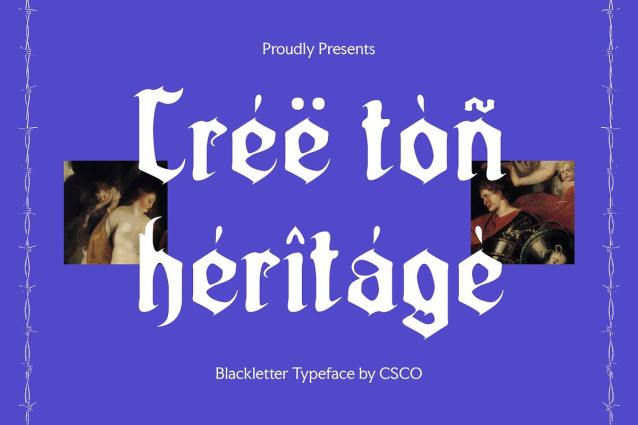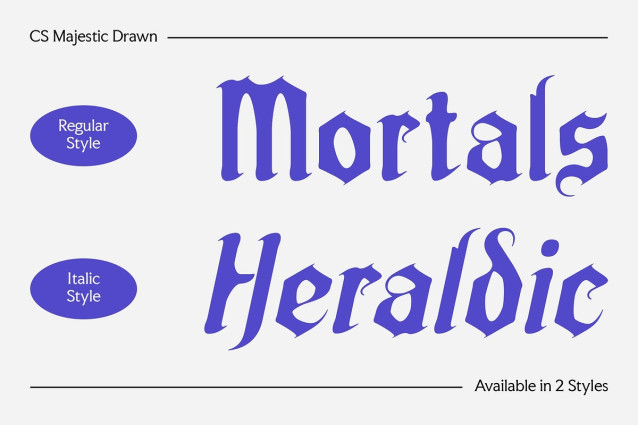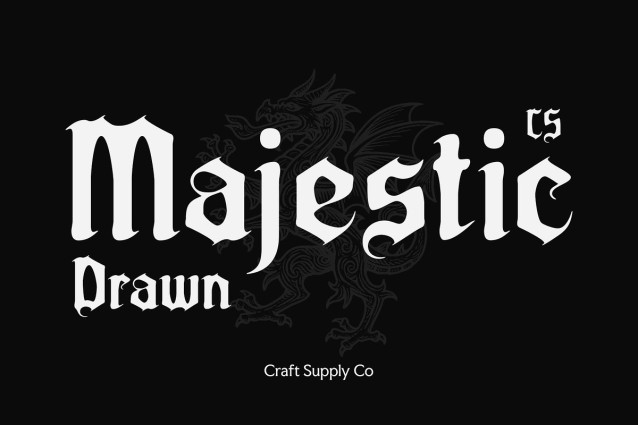
CS Majestic Drawn Font
CS Majestic Drawn brings a fresh take on the blackletter genre, blending classic gothic influences with a modern, drawn aesthetic. Its bold, dramatic letterforms are accentuated by an organic, handcrafted texture, giving the font a raw yet refined presence that feels both timeless and experimental.
Mysterious, Bold, and Full of Character This display font’s sharp angles and flowing strokes create a rhythm that feels dark, expressive, and powerful—perfect for evoking a mysterious or theatrical atmosphere. The drawn look introduces a sense of imperfection and artistry, setting it apart from sterile digital fonts and lending a human touch to your designs.
Designed for Impactful, Experimental Themes This expressive and bold font is ideal for gothic posters, dark branding, underground music visuals, book covers, and conceptual fashion — thriving in settings that demand drama, intensity, and visual uniqueness. Its form strikes a balance between legibility and ornamental flair, making it equally effective in bold headlines or intricate compositions.
Where Classic Meets Contemporary Creativity This experimental font is more than just a display font—it’s a statement piece. Whether you’re creating for theater, avant-garde branding, or any project that needs to command attention and convey strength, this font brings an unmatched fusion of heritage, boldness, and expressive artistry.